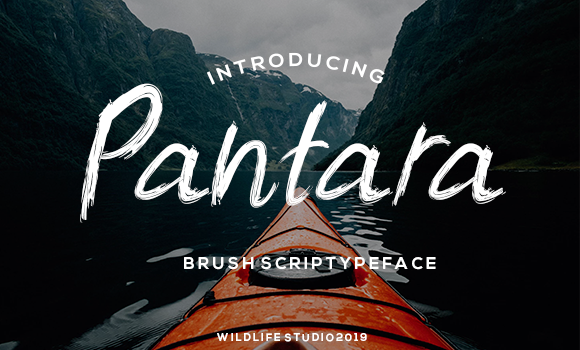
pantara
Pantara Font - Featured Image
Pantara Font – Free Download Introduction to Pantara Font The Pantara is a dry brush script which was made from natural flow scratches with a signature style. 📸 Preview Gallery 6 images 📌 Product Name Pantara Font 👤 Author wildlifestudio19